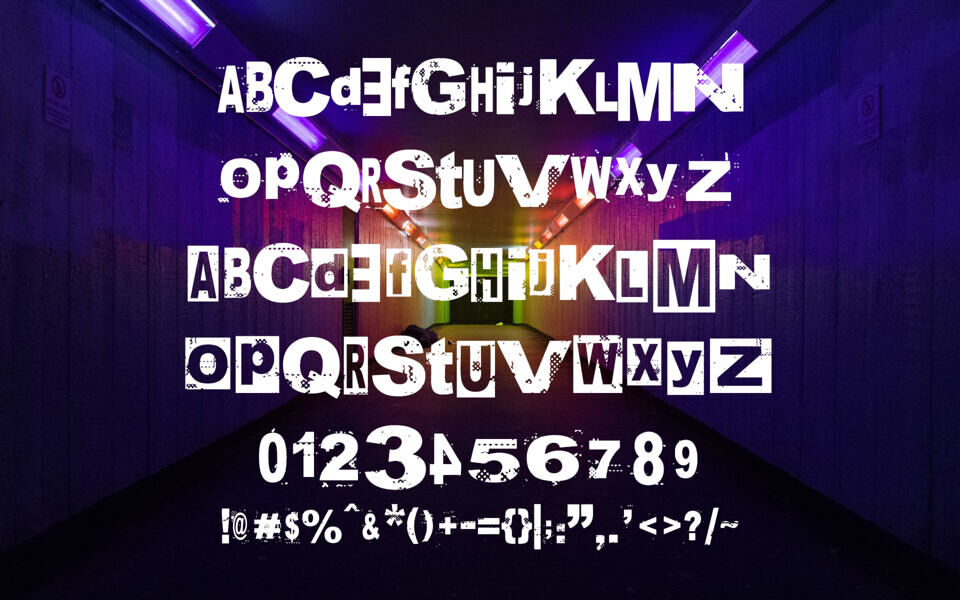
Nancy Spungen is a gritty, punk-inspired all‑caps display typeface by Woodcutter available in two styles (“boxed” Nancy Spungen and cleaner Nancy Spungen Basic).
Its distressed, hand‑cut aesthetic—complete with rough, eroded edges and irregular letterforms—captures the raw energy of DIY punk flyers and album art. Ideal for rebellious editorial, poster, or branding projects seeking bold, disruptive attitude